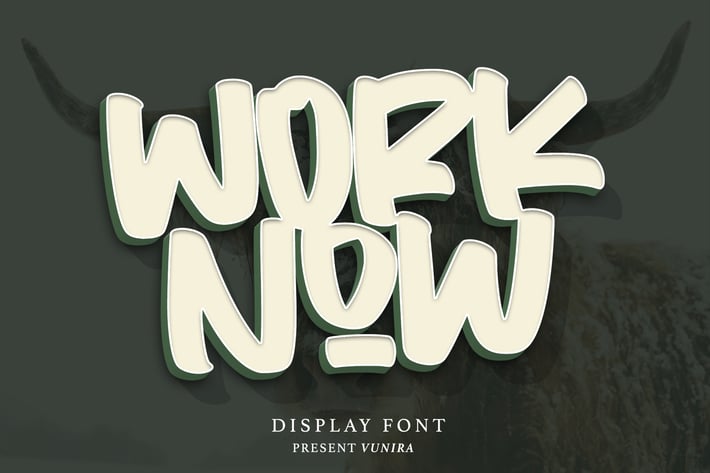
Worknow | Display Font
Worknow | Display Font with a calligraphy style, So beautiful on invitation like greeting cards, branding materials, business cards, quotes, posters, and more!